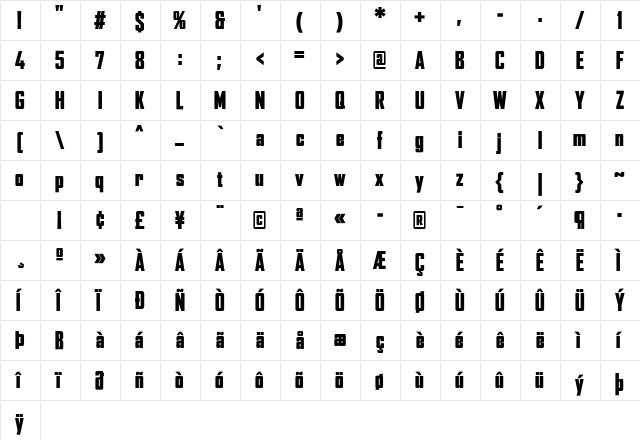
AgencyFB Black Cond Regular
Design Context for AgencyFB Black Cond Typeface
AgencyFB Black Cond takes a measured approach to typography — its balanced proportions and neutral character make it a reliable workhorse for both digital and print work. The condensed width makes it efficient for tight spaces without sacrificing legibility.
Pro Tip: Pair AgencyFB Black Cond with a font of contrasting weight or personality to build a more expressive typographic hierarchy.